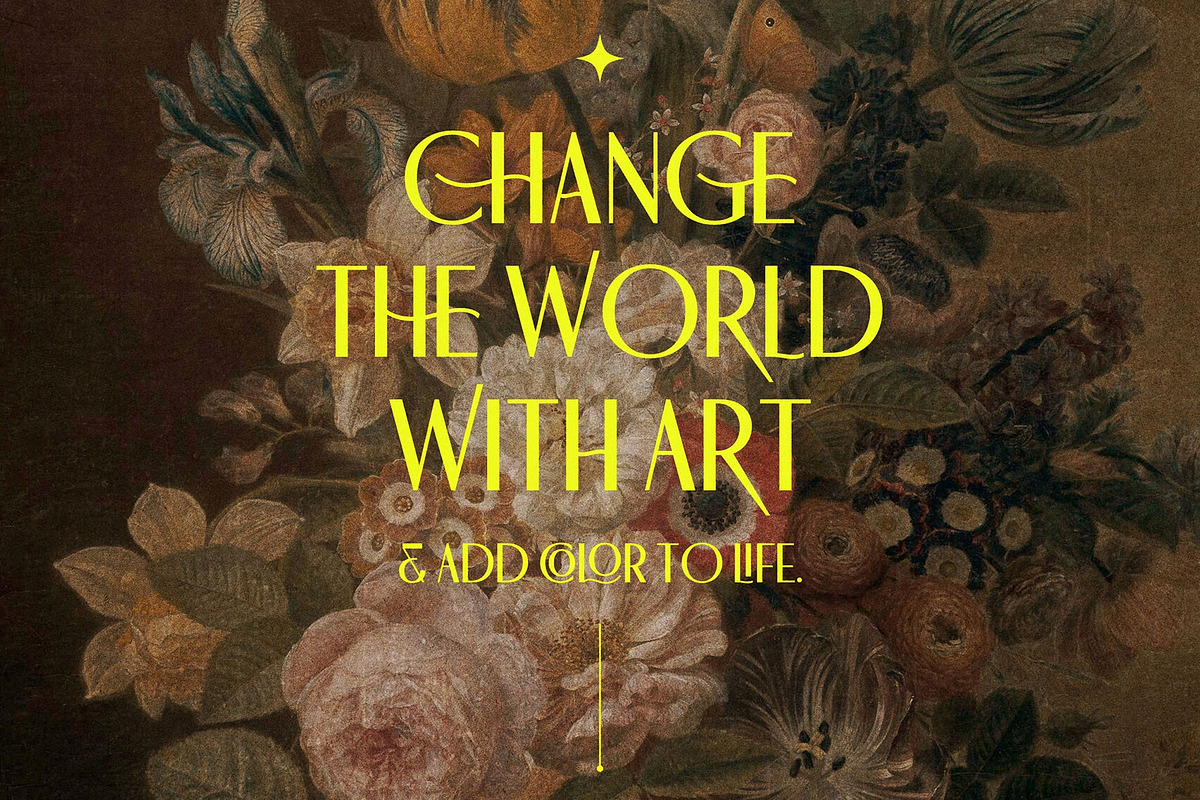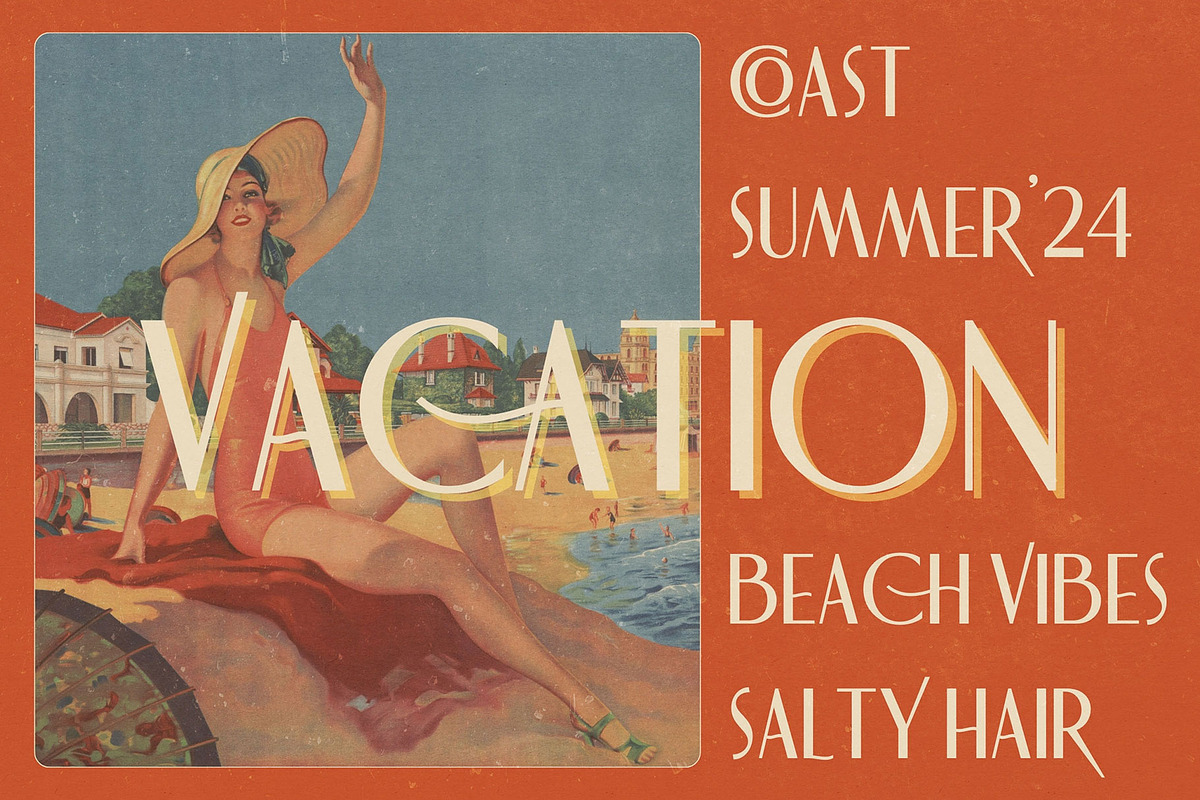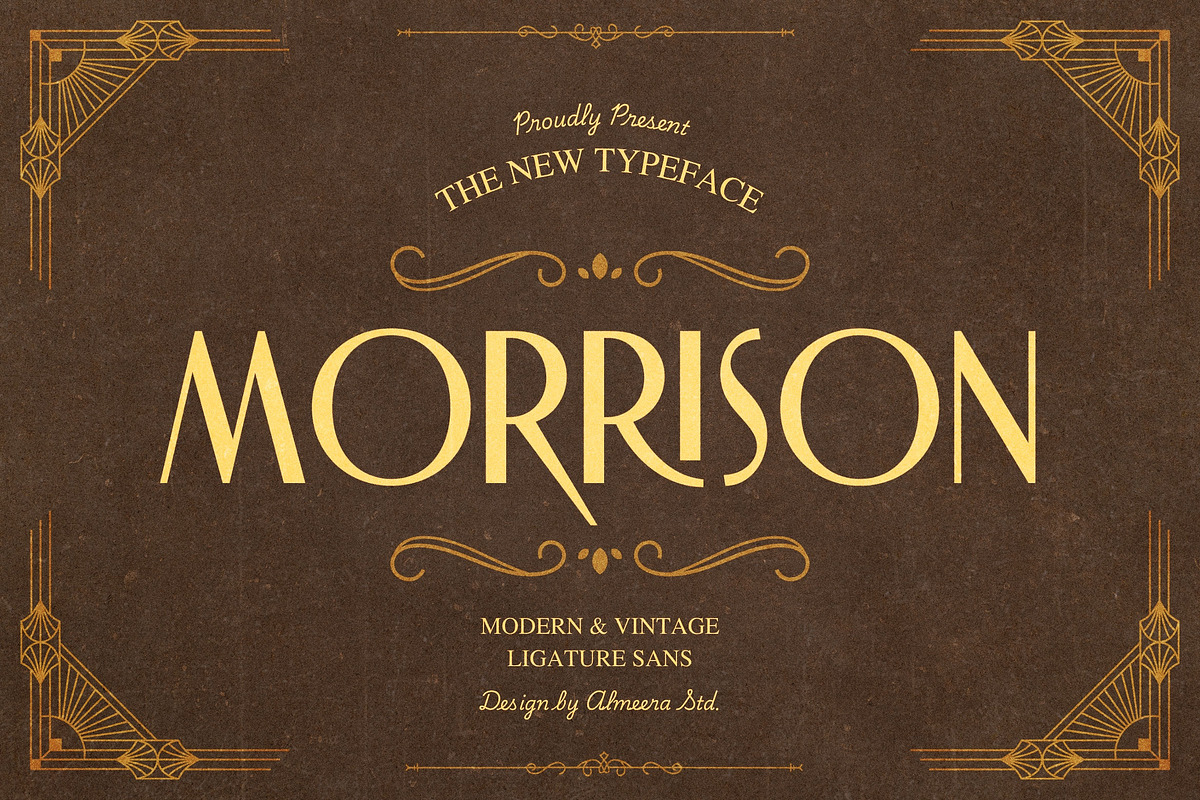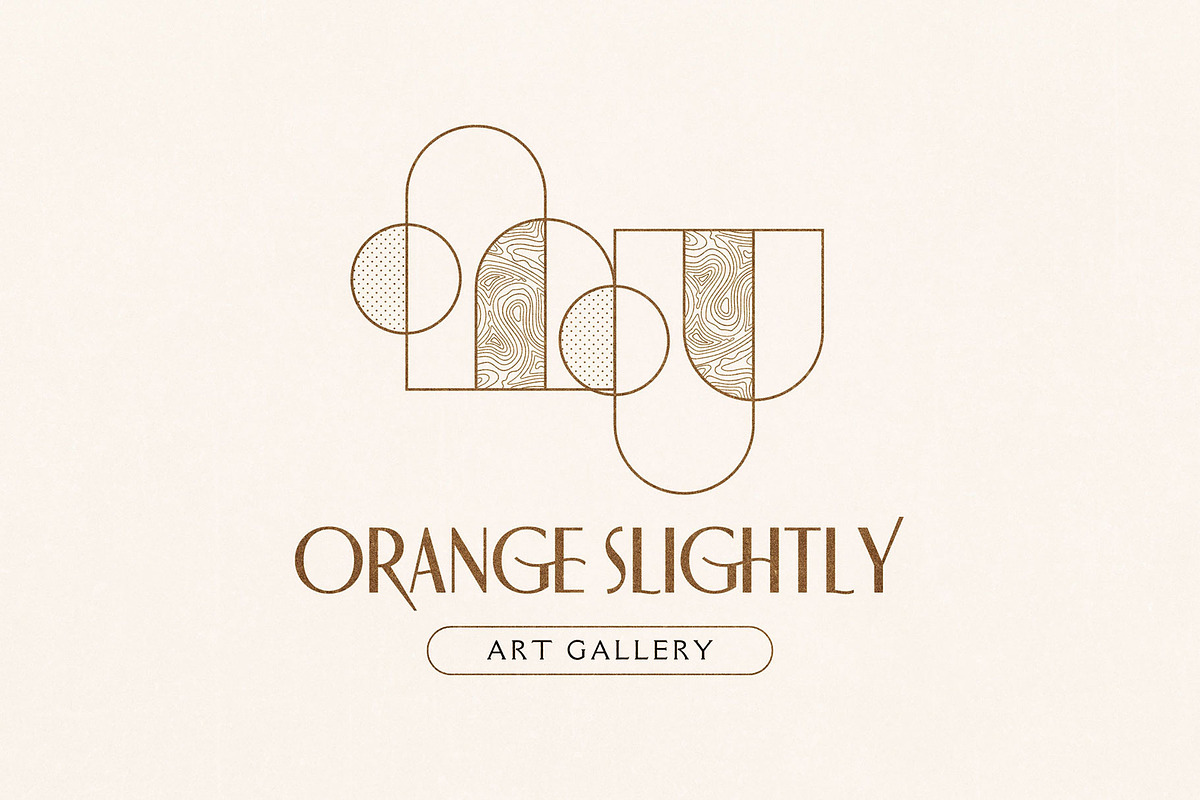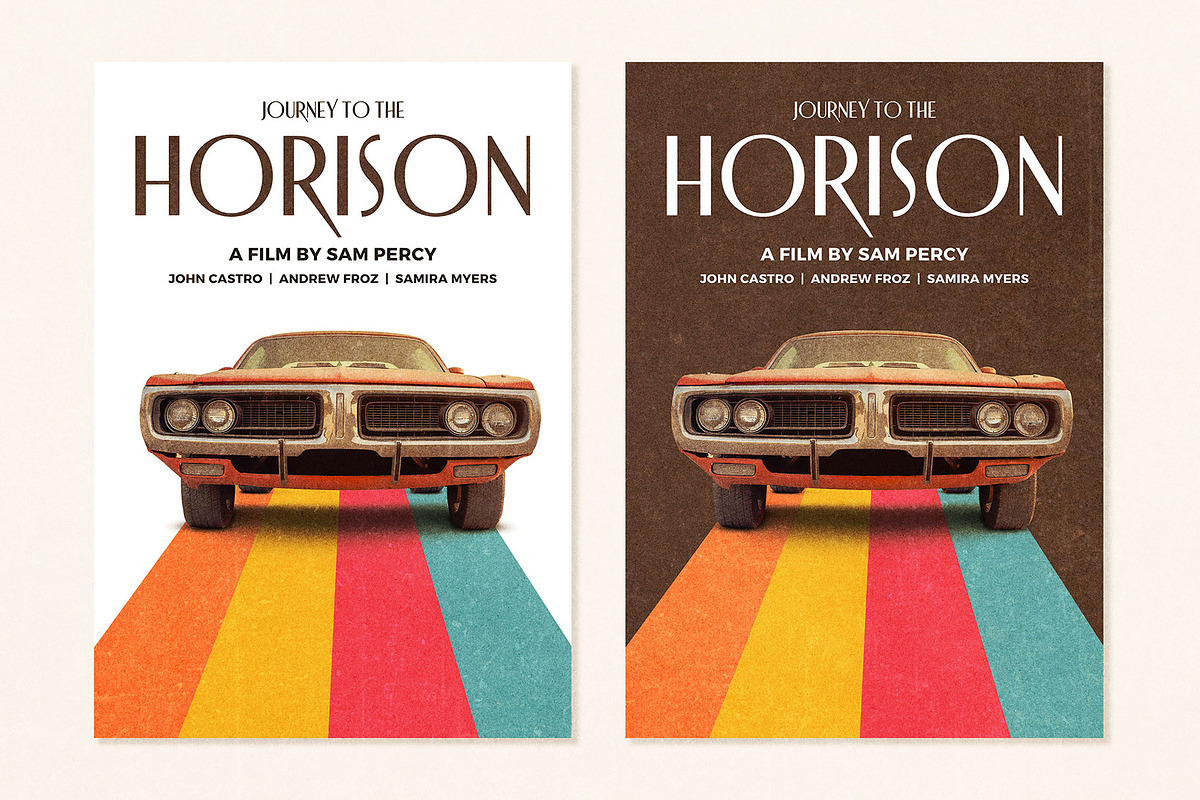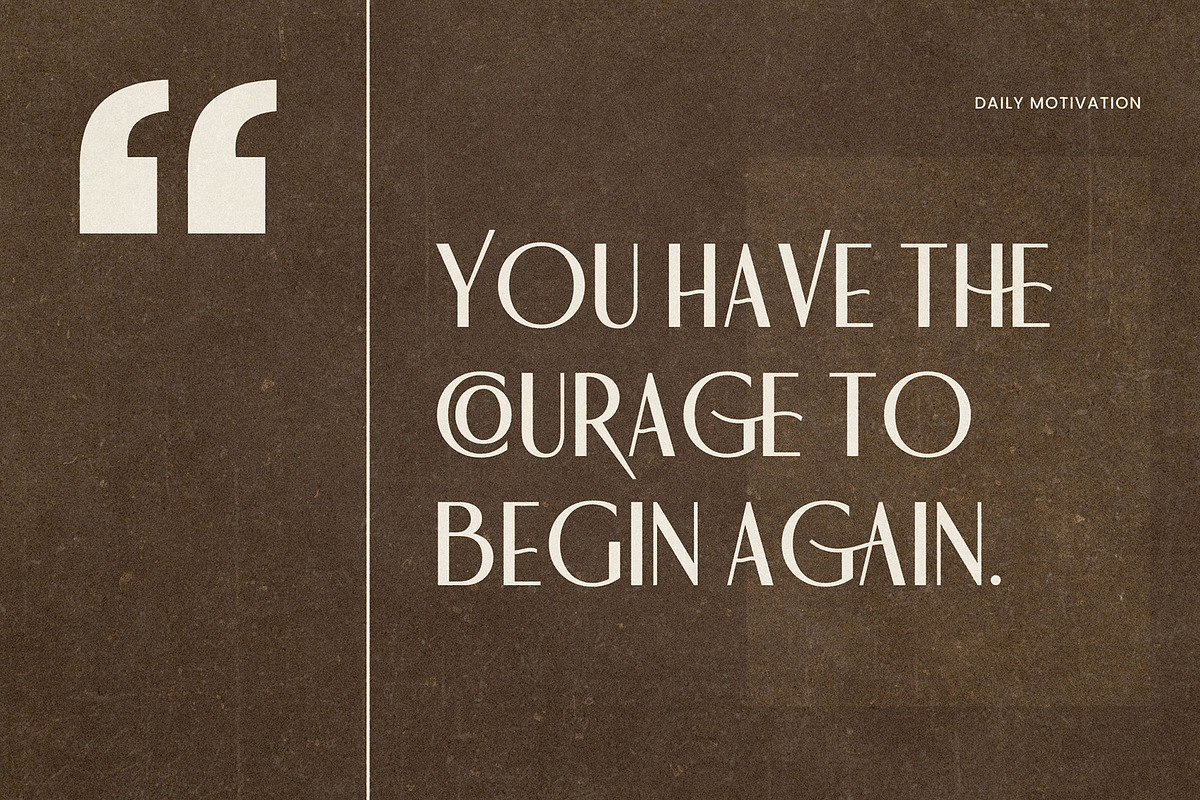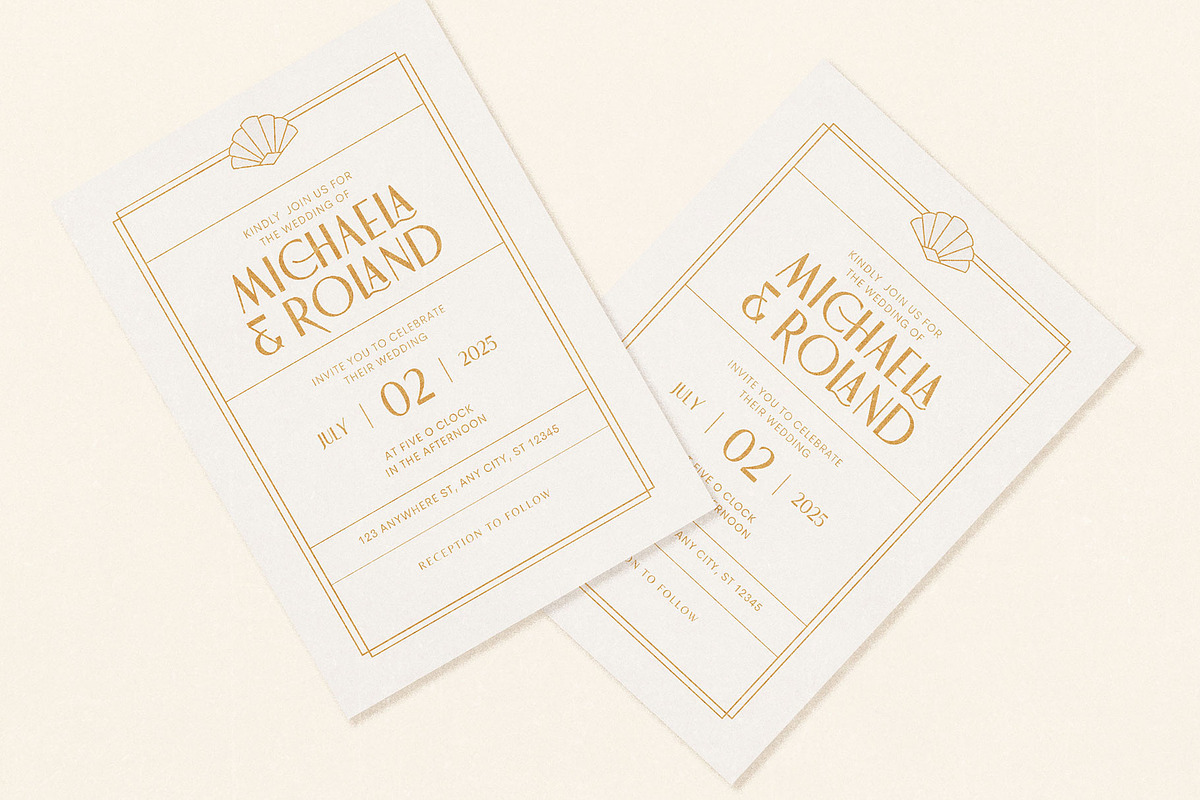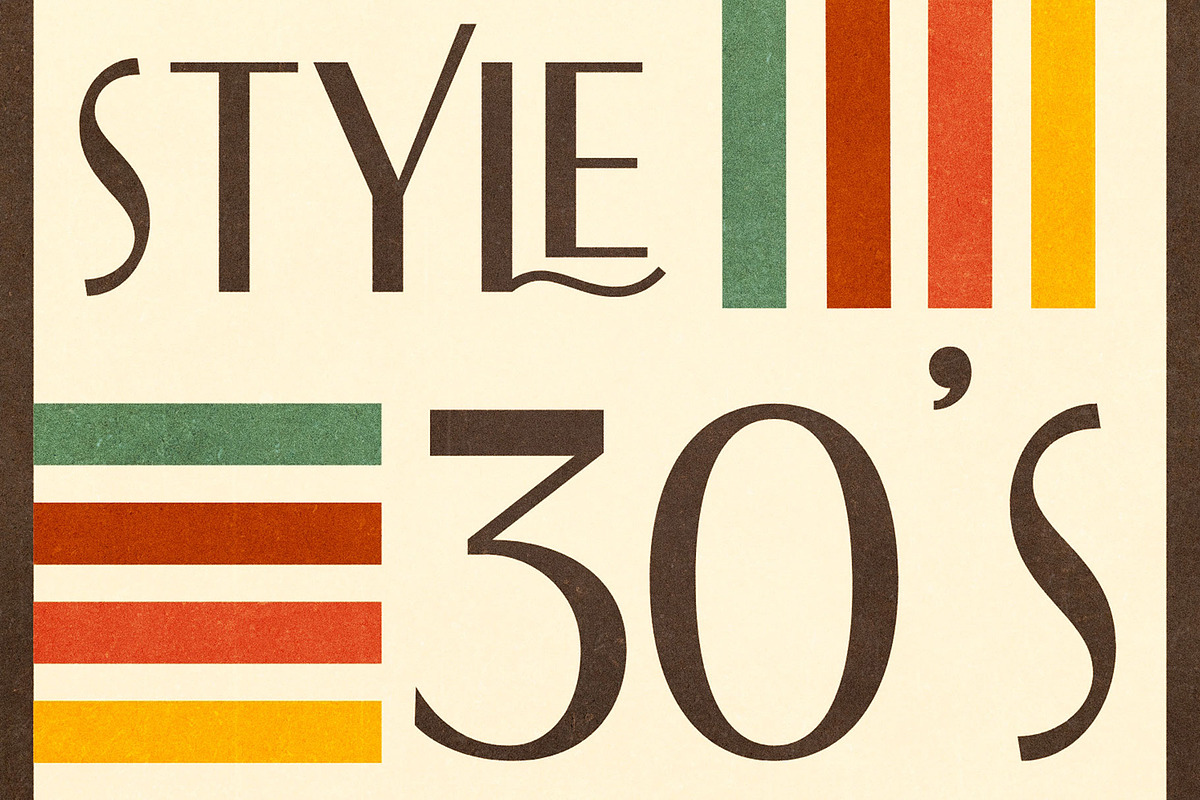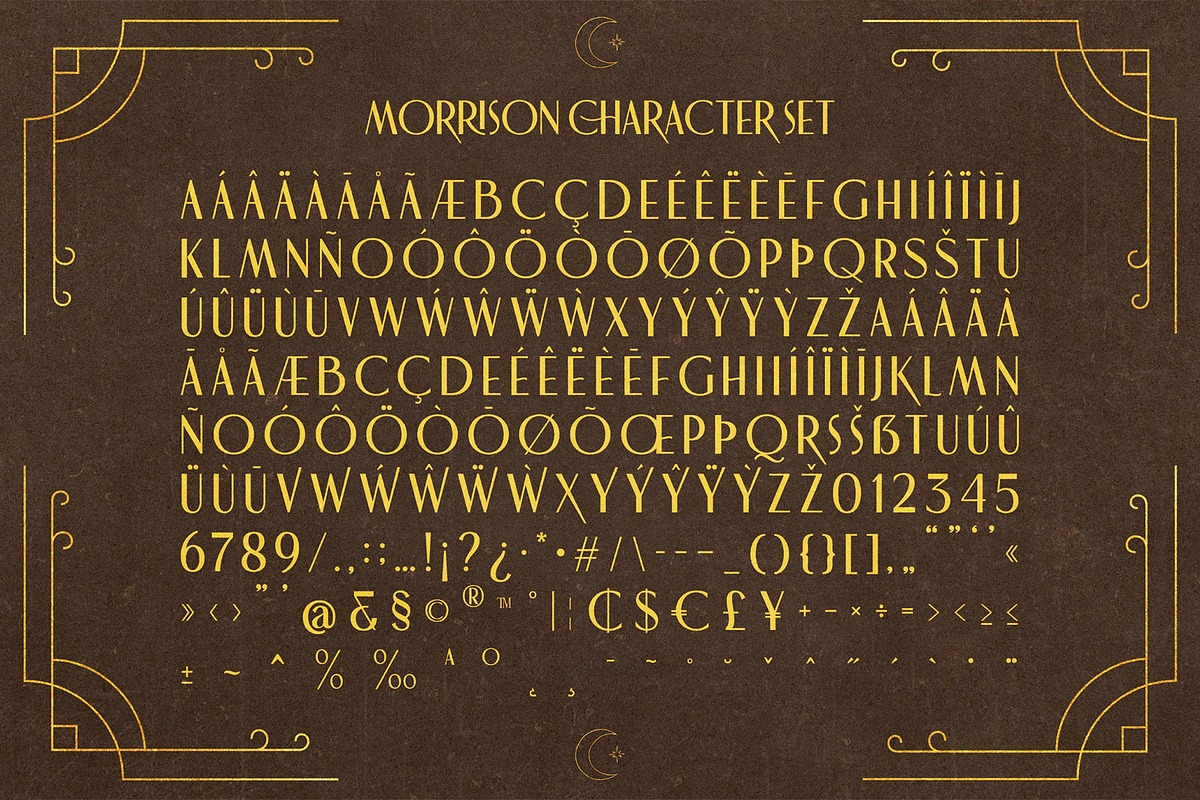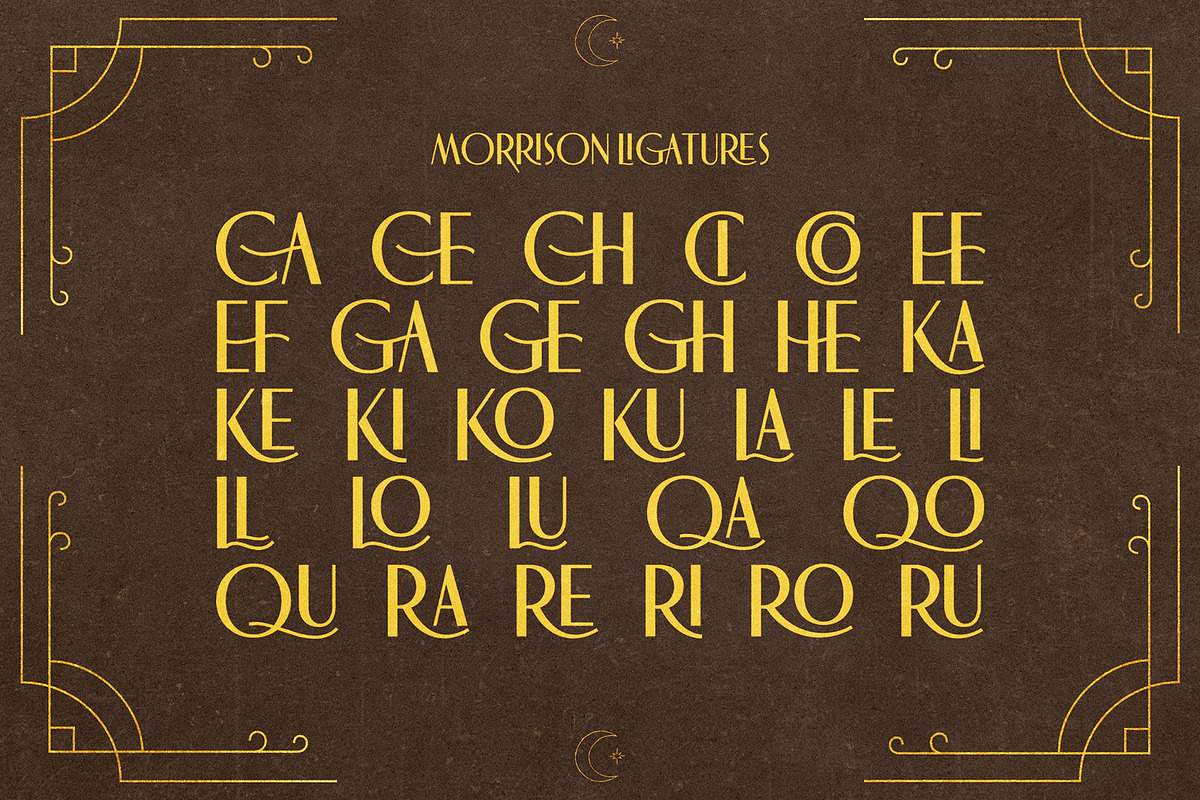
Morrison Ligature Sans
Morrison is a tribute to the decorative arts and architecture movement that emerged in the 1920s, evolving into a defining style of the 1930s across Western Europe and the United States. This luxurious font is meticulously crafted with precision, designed to capture a sleek, semi-modern elegance that reflects the glamour and sophistication of vintage aesthetics. Blending modernist influences with exquisite craftsmanship, Morrison is enhanced by stunning ligatures that add a refined touch.
Ideal for a wide range of creative projects, Morrison elevates your designs with timeless beauty. Whether you're working on logos, headlines, posters, badges, t-shirts, or more, this font delivers a striking impact. It's especially well-suited for headers, certificates, labels, and signage, offering versatility with a classic flair.